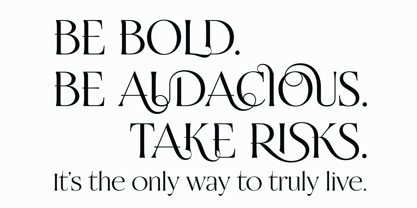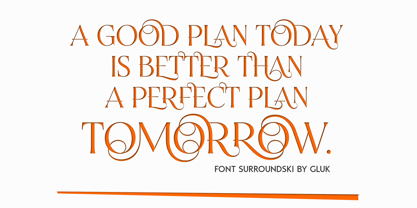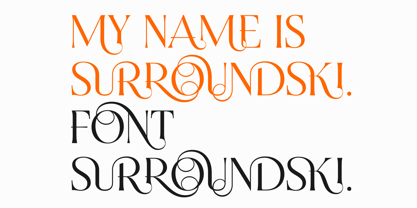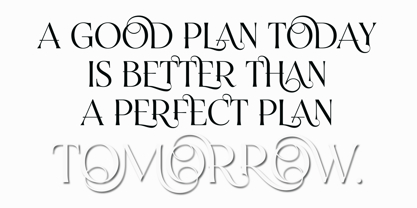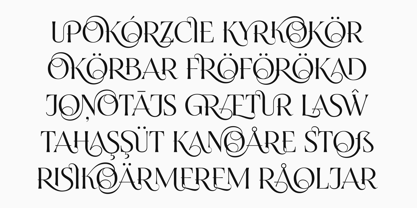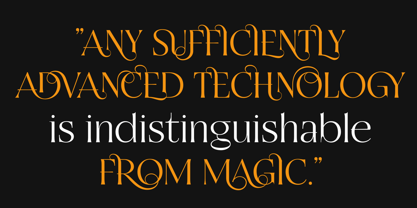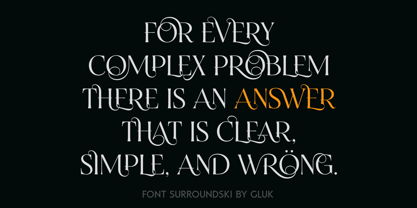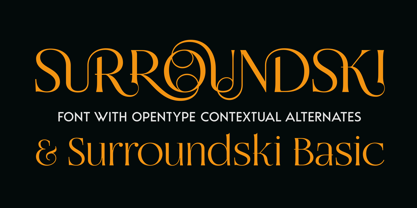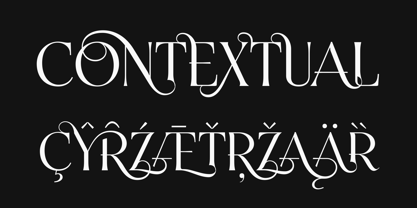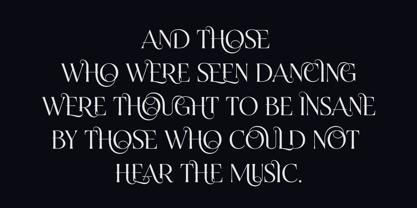
Surroundski
by Glukfonts
The Surroundski Font Family was designed by Grzegorz Łuksza and published by Glukfonts. Surroundski contains 2 styles and family package options. More about this family
Decorative, semi-serif fonts Surroundski is allCaps typeface with multilingual, contextual alternates (dynamically changing glyphs to enhance text flow)
Designers: Grzegorz Łuksza
Foundry: Glukfonts